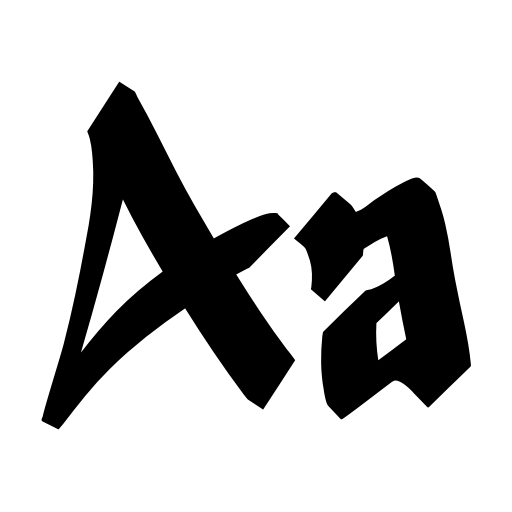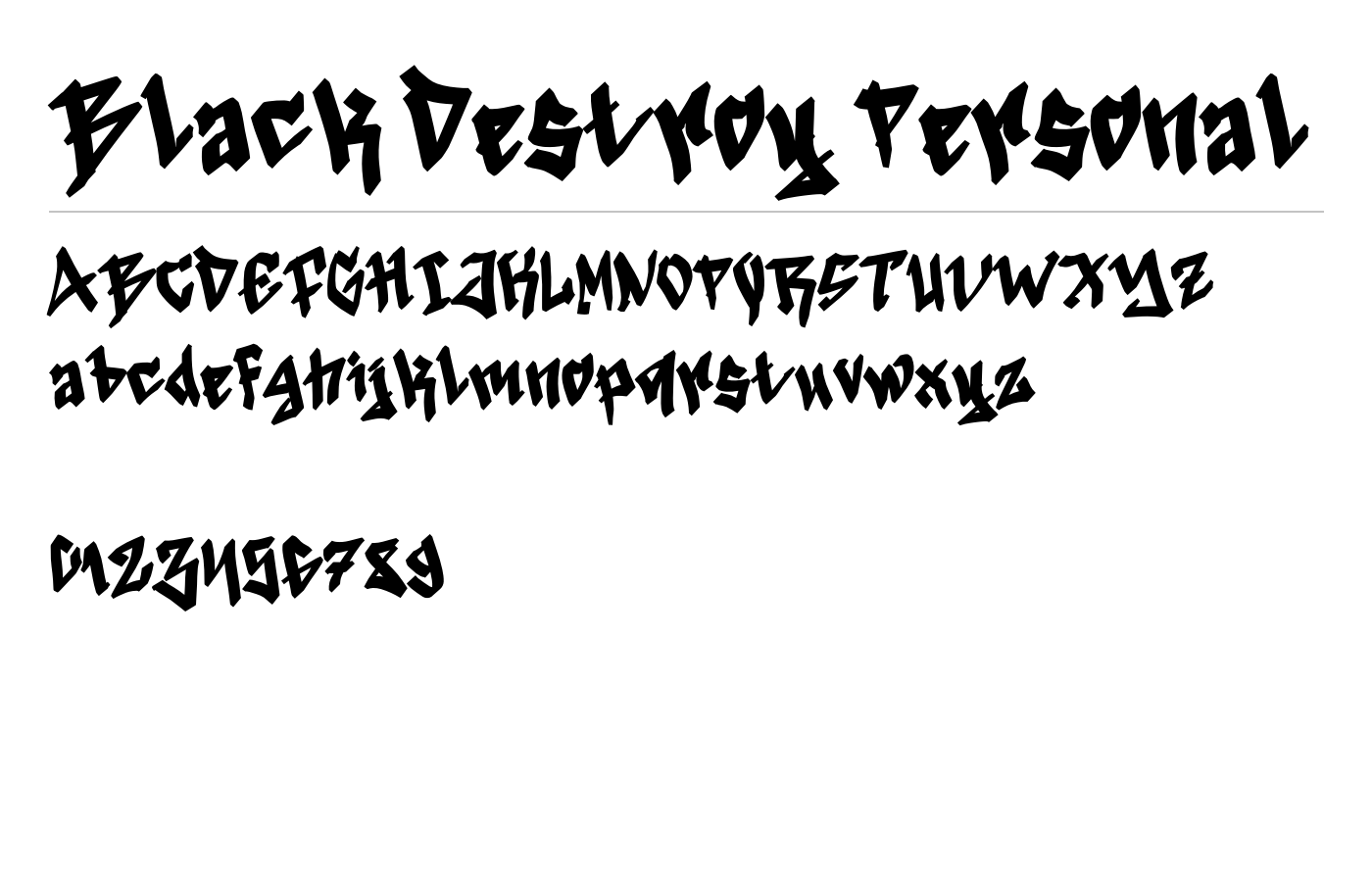
Black Destroy Personal is a bold, expressive display font with a rough, hand-drawn style that evokes a rebellious, edgy character. Its jagged strokes and uneven forms create a dynamic, graffiti-like vibe, making it perfect for designs that want to convey energy and attitude, such as posters, album covers, or urban branding. This font stands out best in large sizes and creative, informal contexts where a strong visual impact is needed.
Black Destroy Personal Font
About Black Destroy Personal Font